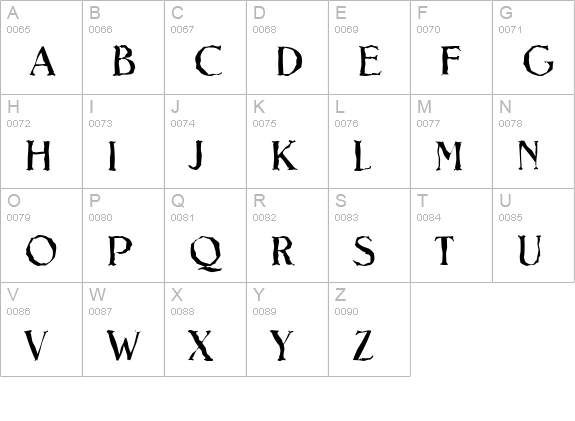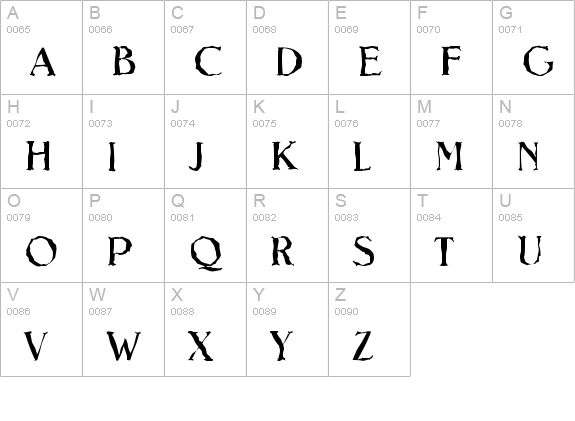
NevadaRandom-Regular Font Details
NevadaRandom-Regular is the standard, neutral variant in the NevadaRandom typeface family \xE2\x80\x94 well suited to general body text, paragraphs, and standard typographic work.